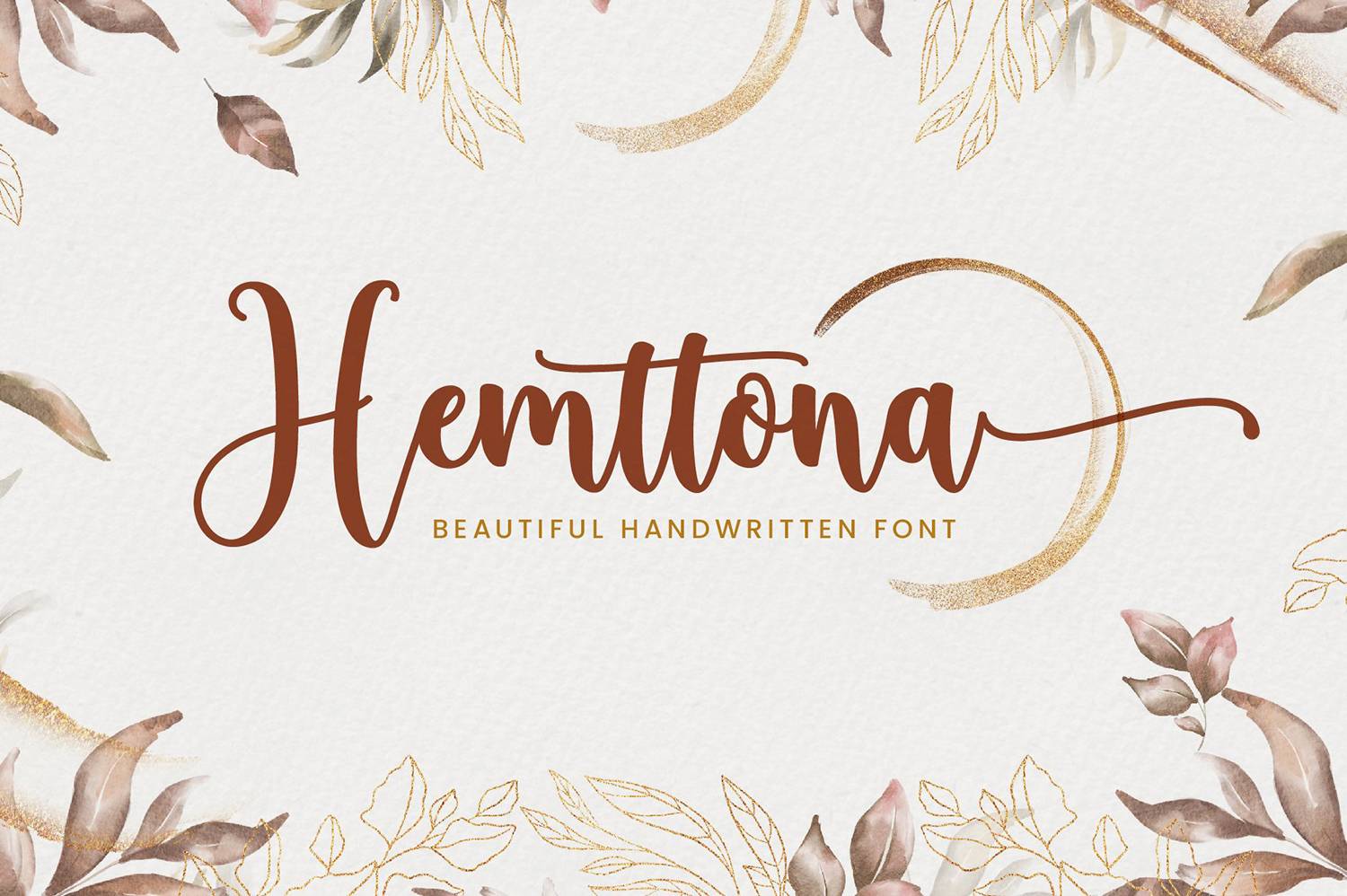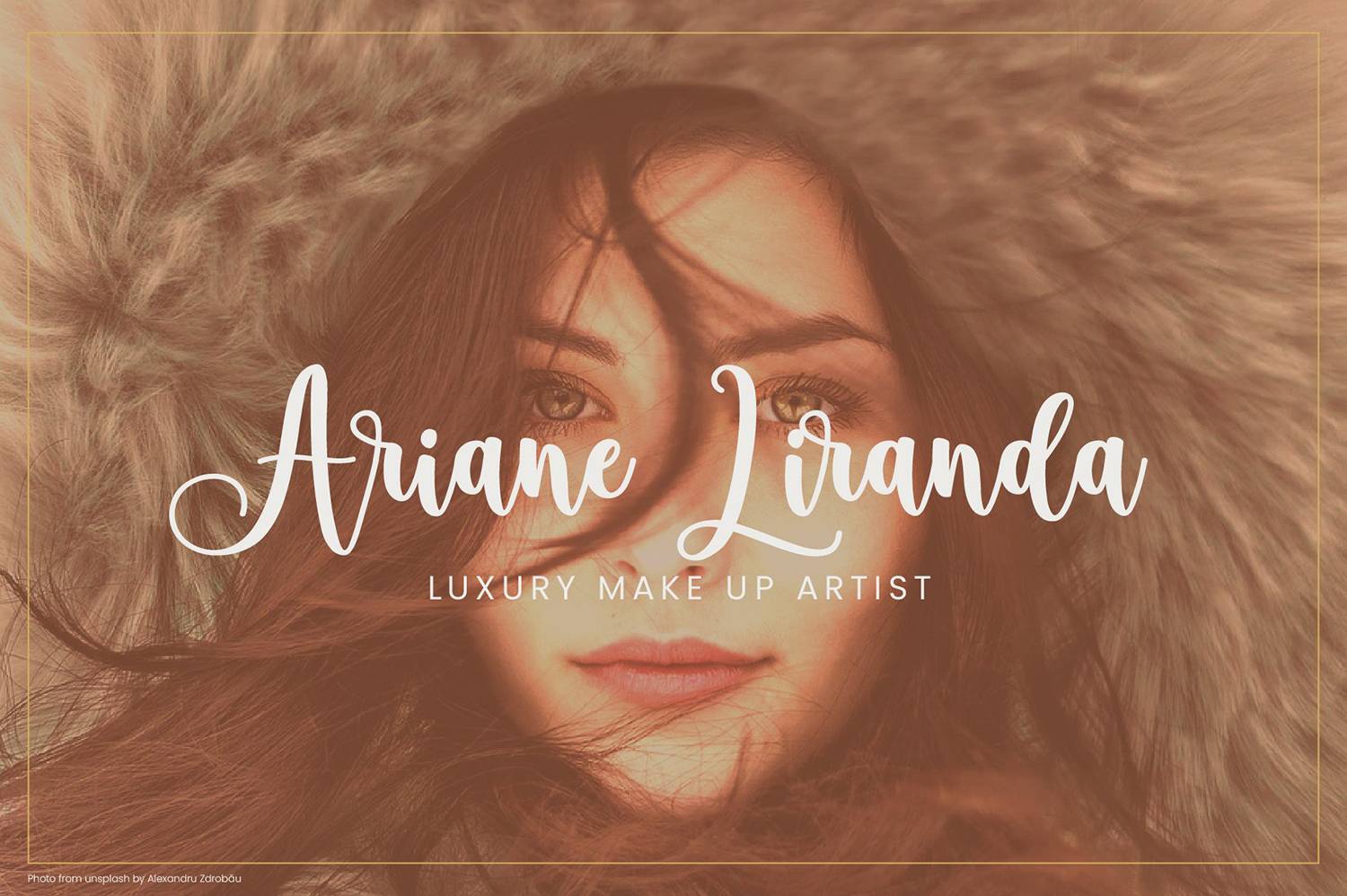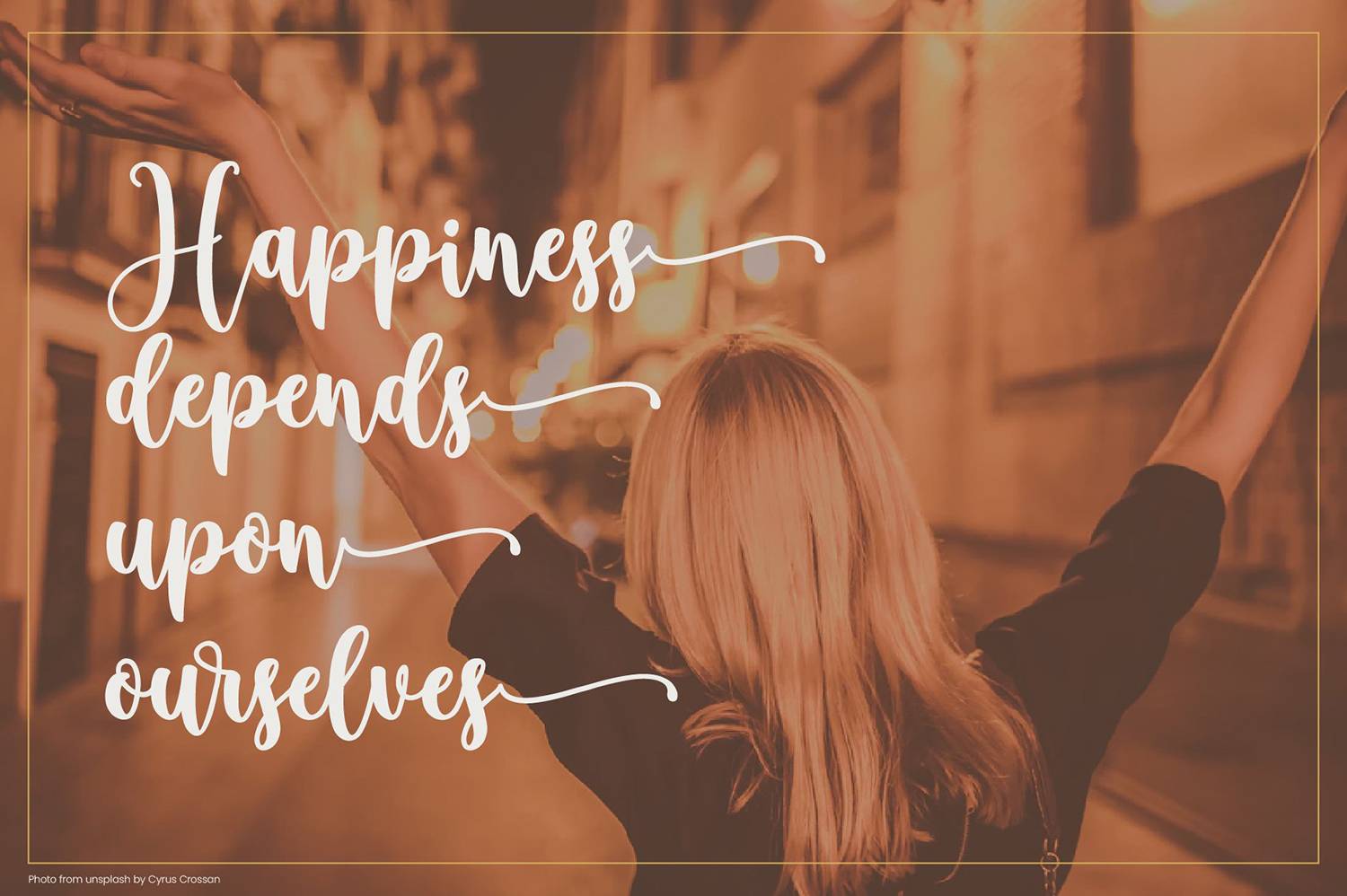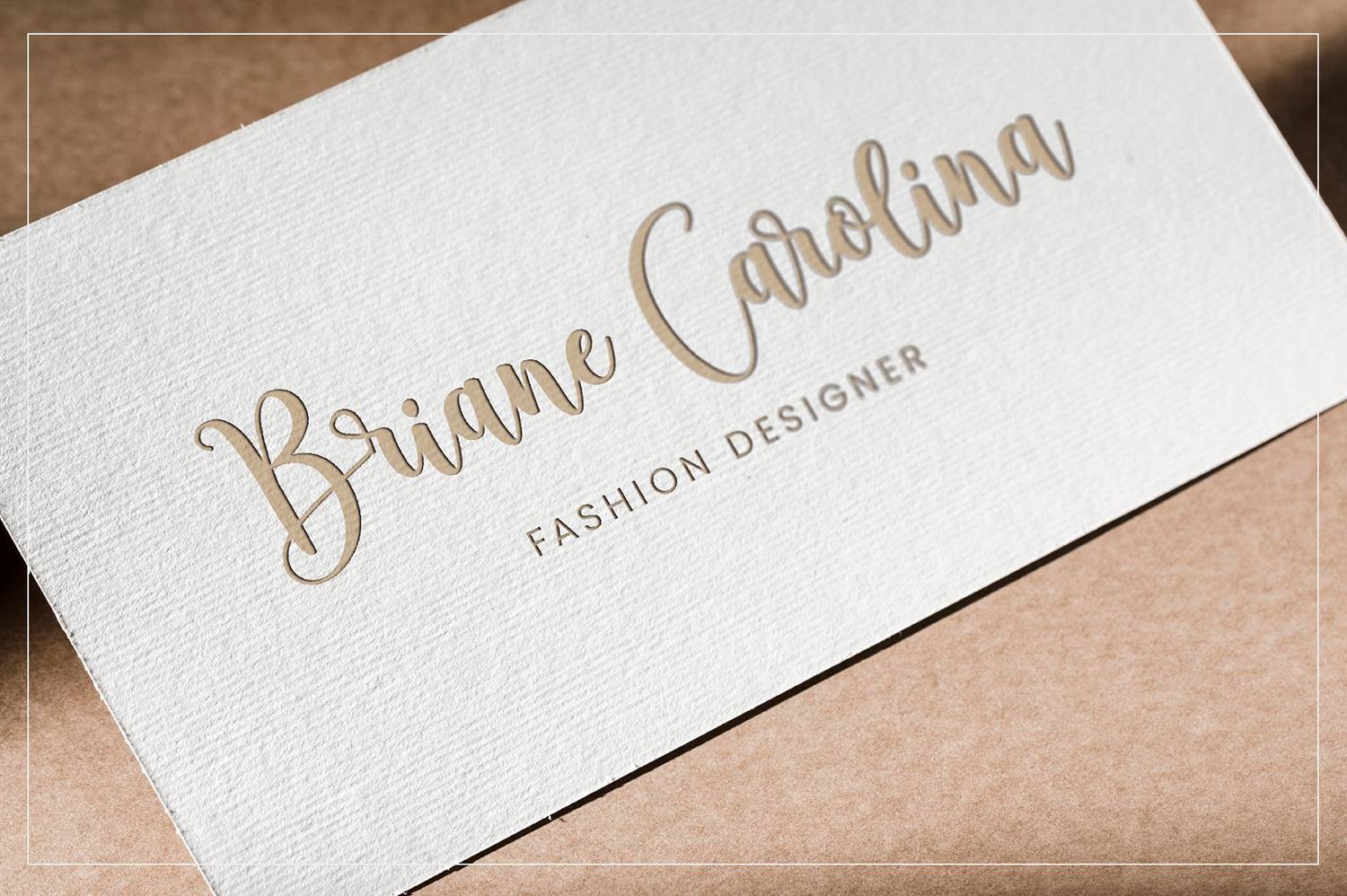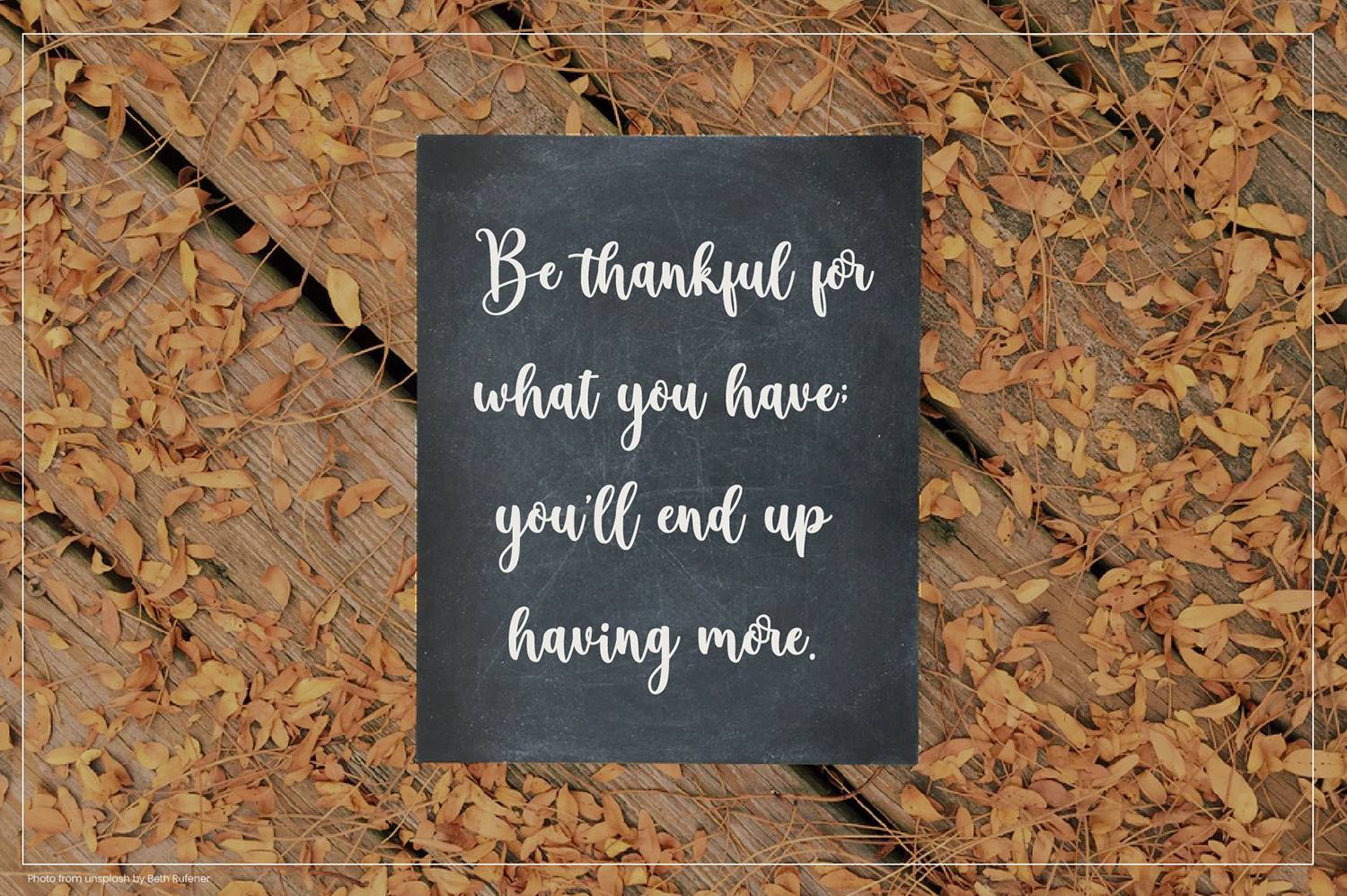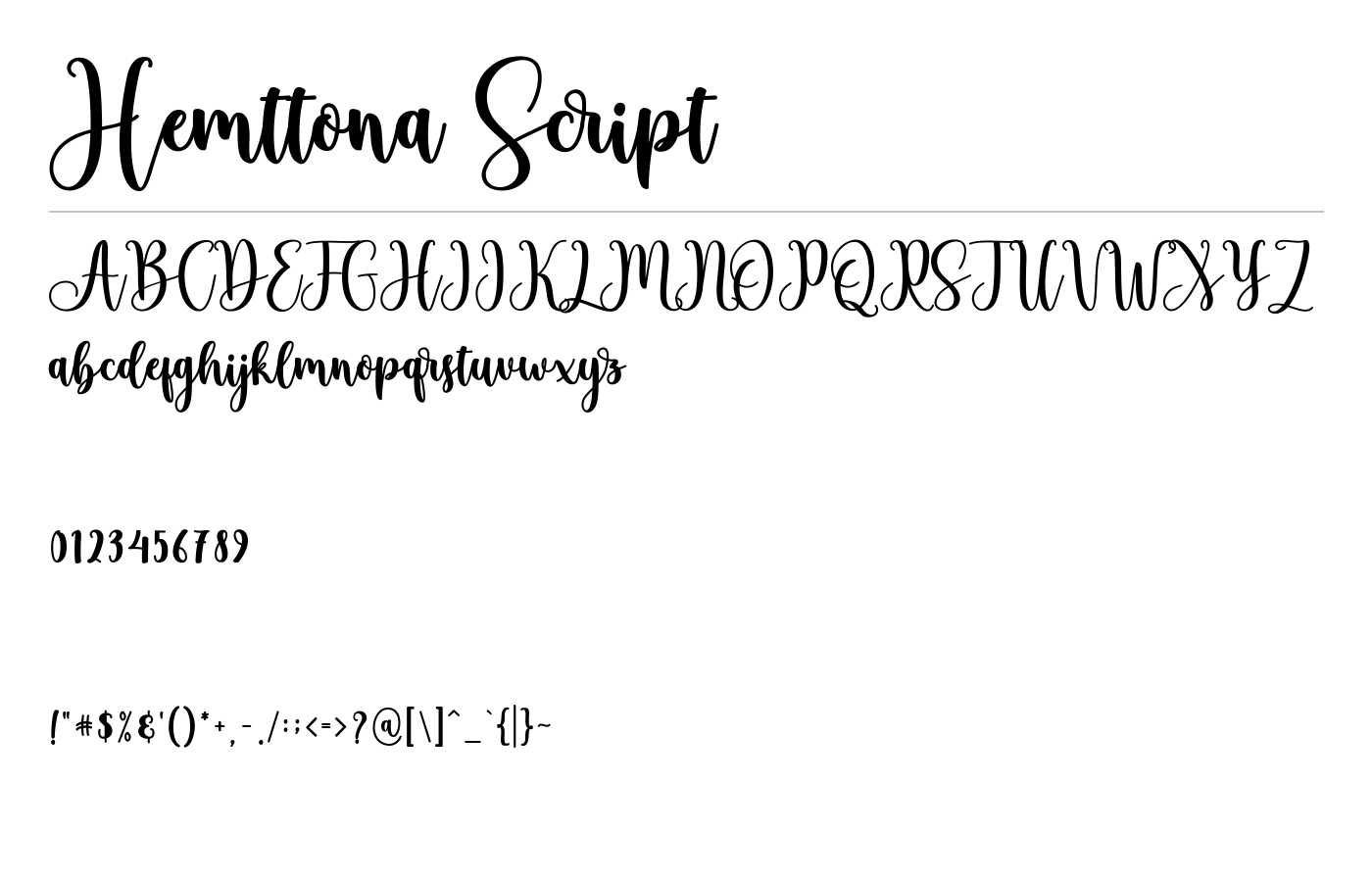
Hemttona Script is an elegant, playful script font featuring smooth, flowing strokes with a moderate contrast between thick and thin lines. Its uppercase letters are ornate with curly swashes, while the lowercase is more compact and bold, giving the font a charming, handwritten feel. This font works well for creative branding, invitations, and headlines where a friendly yet stylish touch is desired.
Hemttona Font
About Hemttona Font
| Font family | Hemttona Font |
| Designer | Wandani Creative |